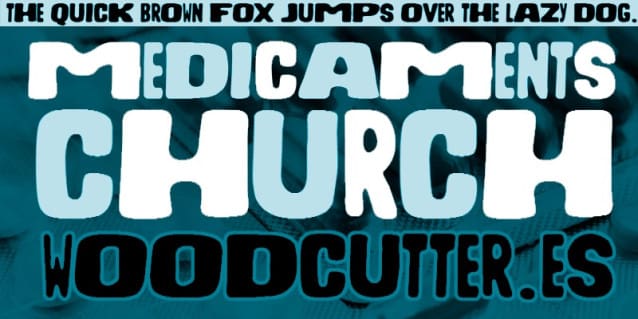
Medicaments Church Font
Medicaments Church Font, perfectly fit for branding, logo, wedding things, greeting cards, fashion, lookbook, marketing promotion, anytime you want to look fancy elegant but still casual.
Medicaments Church.